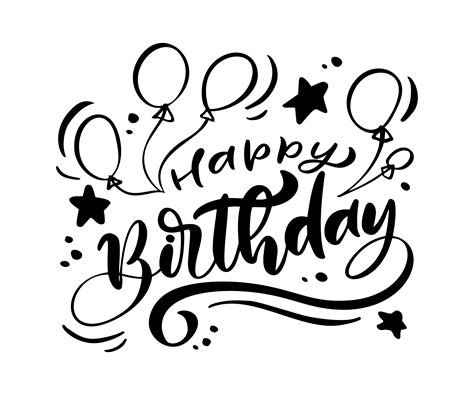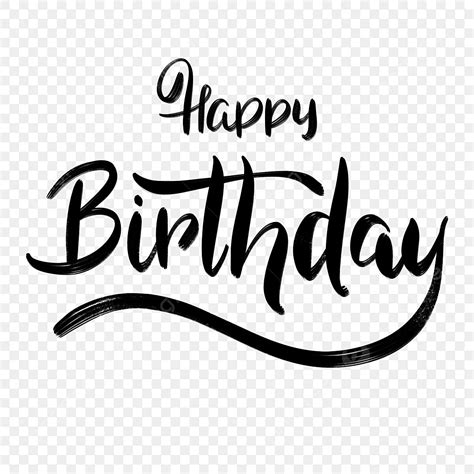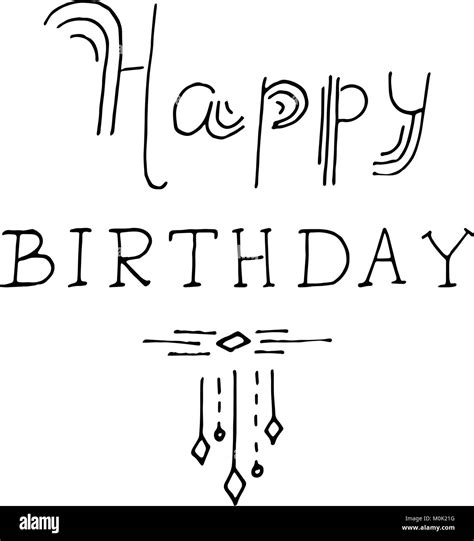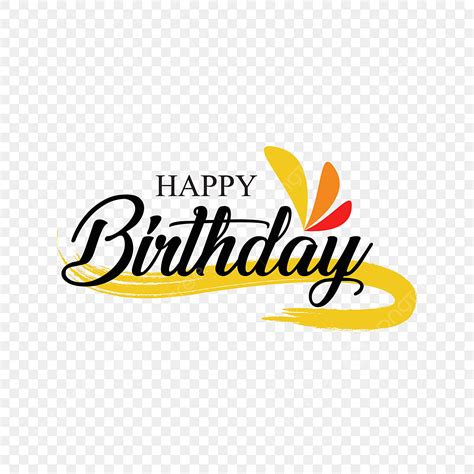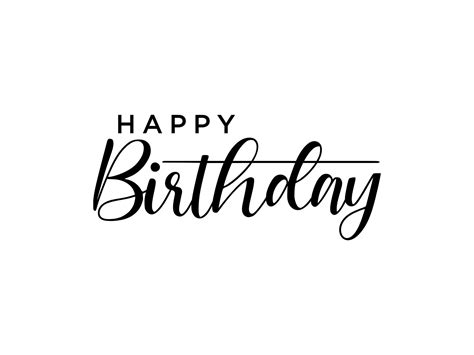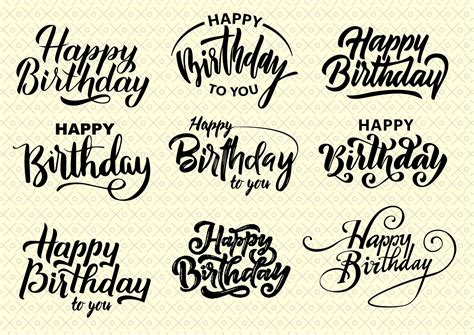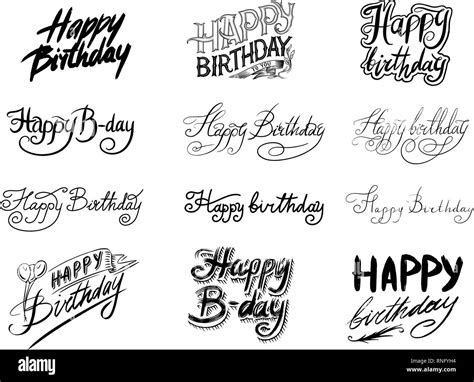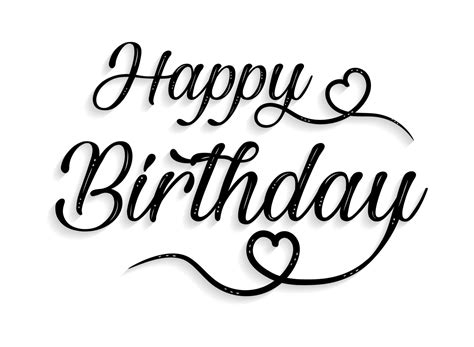
Celebrating birthdays is a joyous occasion that brings people together to honor the special day of a loved one. One of the most exciting aspects of planning a birthday celebration is choosing the perfect decorations, and a significant part of that is selecting the right fonts for invitations, banners, and other festive elements. Happy Birthday Fonts play a crucial role in setting the tone and theme of the celebration, making them an essential consideration for anyone planning a birthday party.
Understanding the Importance of Happy Birthday Fonts
Fonts are more than just a way to display text; they convey emotions, themes, and personalities. When it comes to birthday celebrations, the right font can enhance the overall experience and make the event more memorable. Whether you're planning a child's birthday party, a milestone celebration, or a surprise gathering for a friend, choosing the perfect Happy Birthday Fonts can elevate the festive atmosphere.
Types of Happy Birthday Fonts
There are numerous types of fonts available, each with its unique style and character. Here are some popular categories of Happy Birthday Fonts that you can consider:
- Handwritten Fonts: These fonts mimic the look of handwriting and are perfect for adding a personal touch to invitations and banners. They are ideal for casual and intimate gatherings.
- Script Fonts: Elegant and flowing, script fonts are great for formal events and milestone celebrations. They add a touch of sophistication and class to any birthday party.
- Bold and Playful Fonts: These fonts are vibrant and eye-catching, making them perfect for children's birthday parties. They can add a fun and energetic vibe to the celebration.
- Vintage Fonts: For a nostalgic and retro feel, vintage fonts are an excellent choice. They are perfect for themed parties or celebrations with a historical twist.
- Modern and Minimalist Fonts: Clean and sleek, these fonts are ideal for contemporary and sophisticated birthday parties. They provide a modern aesthetic that can be both elegant and understated.
Choosing the Right Happy Birthday Fonts for Different Occasions
Selecting the right font depends on the type of birthday celebration you are planning. Here are some guidelines to help you choose the perfect Happy Birthday Fonts for different occasions:
Children's Birthday Parties
For children's birthday parties, you want fonts that are fun, playful, and easy to read. Bold and playful fonts are often the best choice for this age group. They can make invitations and decorations more engaging and exciting for the young guests.
Adult Birthday Parties
Adult birthday parties can range from casual get-togethers to formal events. For a more casual gathering, handwritten or script fonts can add a personal and inviting touch. For formal events, elegant script fonts or modern minimalist fonts can create a sophisticated atmosphere.
Milestone Birthdays
Milestone birthdays, such as 30th, 40th, or 50th, often call for a more elegant and refined font. Script fonts or vintage fonts can add a touch of class and nostalgia to these special celebrations. They can make the invitations and decorations feel more significant and memorable.
Themed Birthday Parties
If you're planning a themed birthday party, the font choice should complement the theme. For example, a vintage-themed party might benefit from vintage fonts, while a modern-themed party could use sleek, minimalist fonts. Matching the font to the theme can enhance the overall experience and make the party more cohesive.
Popular Happy Birthday Fonts
There are many popular Happy Birthday Fonts that are widely used for various celebrations. Here are some of the most beloved options:
| Font Name | Style | Best For |
| Pacifico | Handwritten | Casual and fun events |
| Lobster | Script | Elegant and formal events |
| Bubblegum Sans | Bold and Playful | Children's parties |
| Great Vibes | Script | Wedding and formal events |
| Montserrat | Modern and Minimalist | Contemporary and sophisticated events |
📝 Note: When choosing a font, consider the overall theme and mood of the celebration. The font should complement the decorations, colors, and other elements of the party.
Designing with Happy Birthday Fonts
Once you've chosen the perfect Happy Birthday Fonts, the next step is to design your invitations, banners, and other decorations. Here are some tips to help you create stunning designs:
- Color Scheme: Choose a color scheme that complements the font and the overall theme of the party. Bright and vibrant colors work well for children's parties, while softer, more muted tones are better for adult celebrations.
- Size and Placement: Ensure that the text is large enough to be easily readable from a distance. Place important information, such as the date, time, and location, in prominent positions.
- Consistency: Use the same font or a consistent set of fonts throughout all your decorations. This creates a cohesive look and makes the party feel more organized and polished.